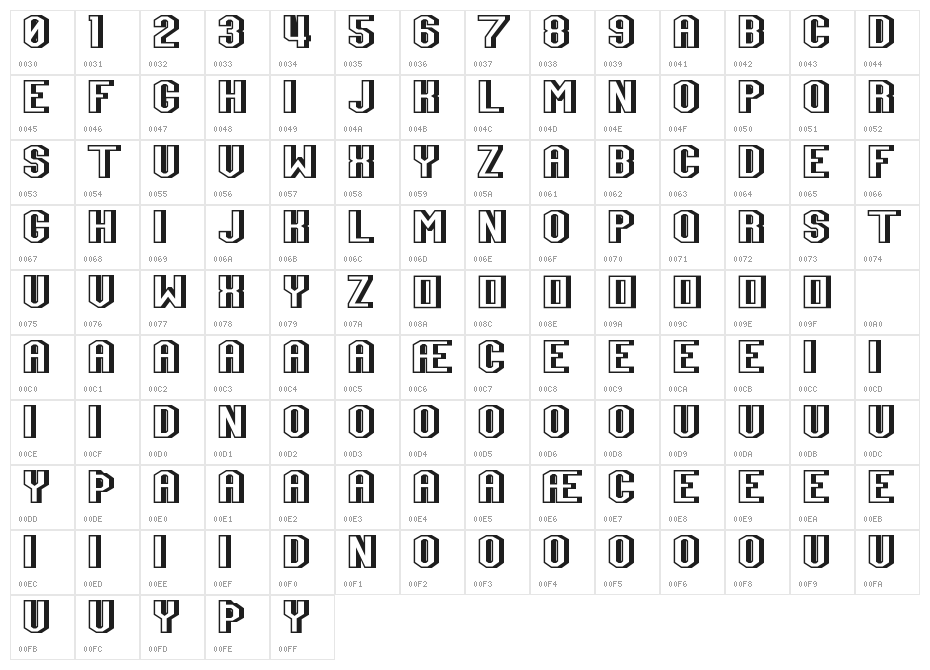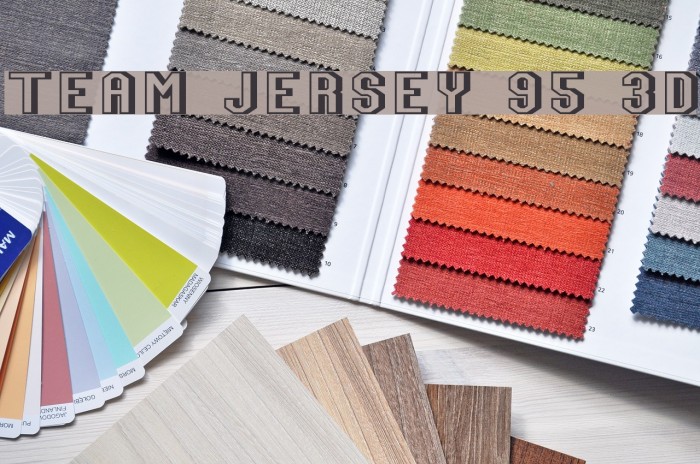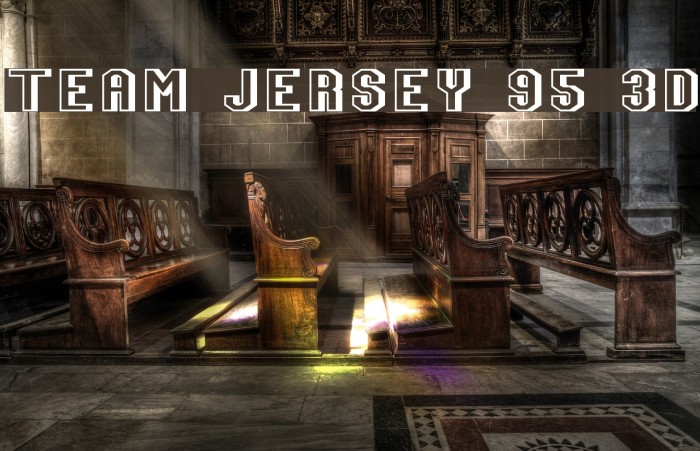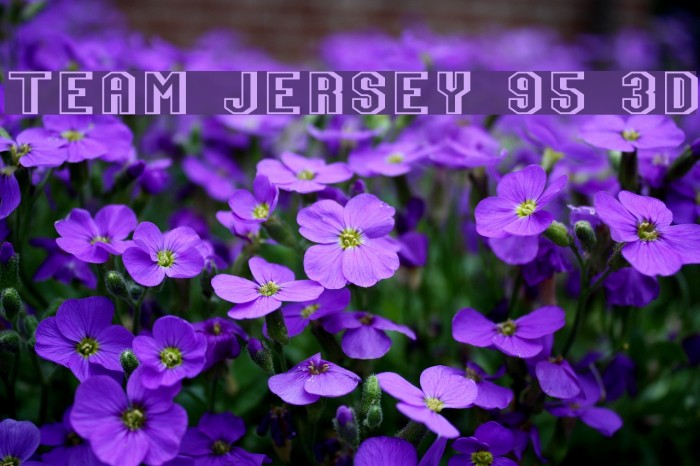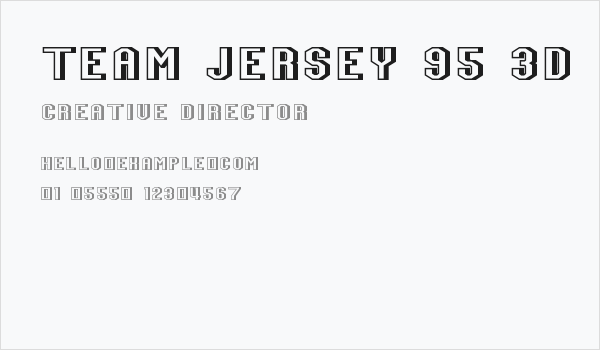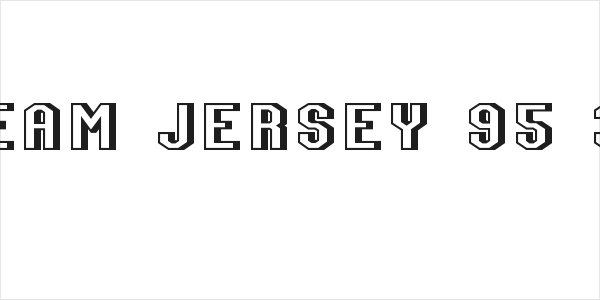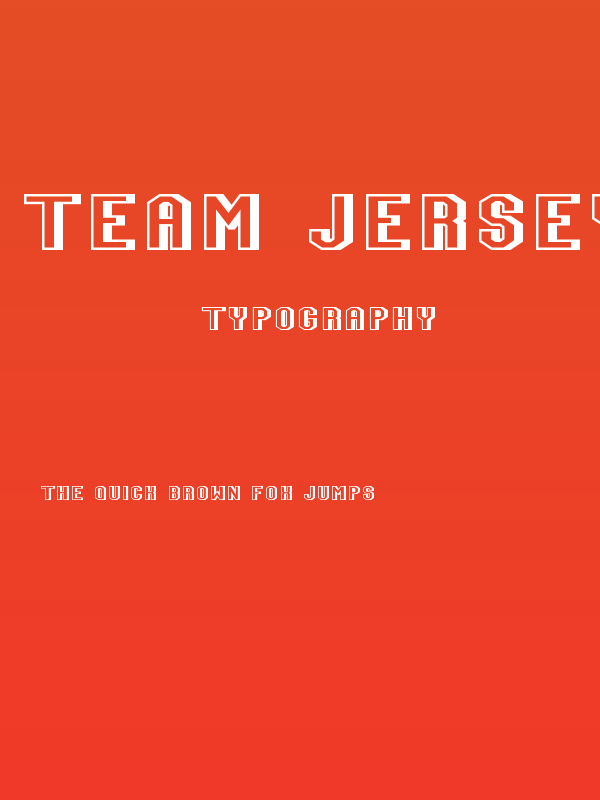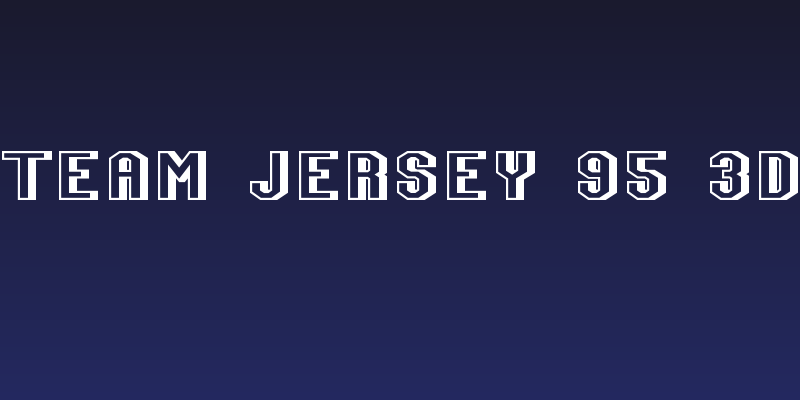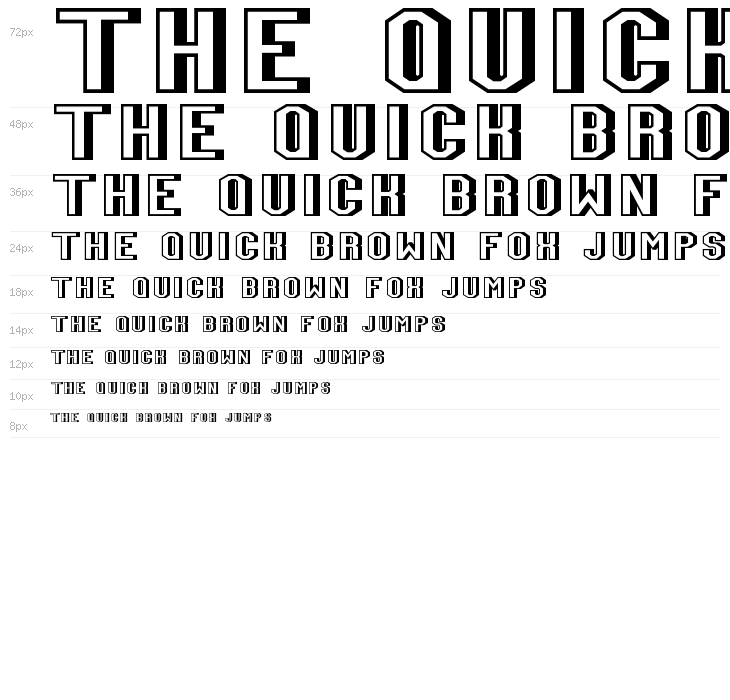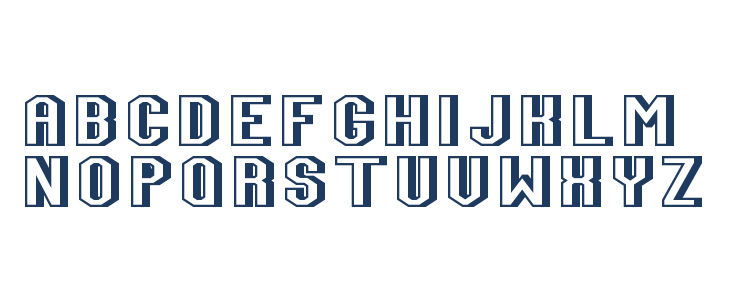
Team Jersey 95 3D Font
Team Jersey 95 3D Description
This font features a bold, three-dimensional design with a strong, athletic aesthetic. Each character is outlined with a thick black border, giving it a prominent and impactful appearance. The letters and numbers have a blocky, geometric structure, reminiscent of sports jerseys and team branding. The 3D effect is achieved through a clever use of shading and perspective, making the characters appear as if they are popping off the page. This style is ideal for creating a dynamic and energetic visual impact.
| Proposed Projects | Ideal for sports team branding, athletic event posters, and dynamic logo designs. |